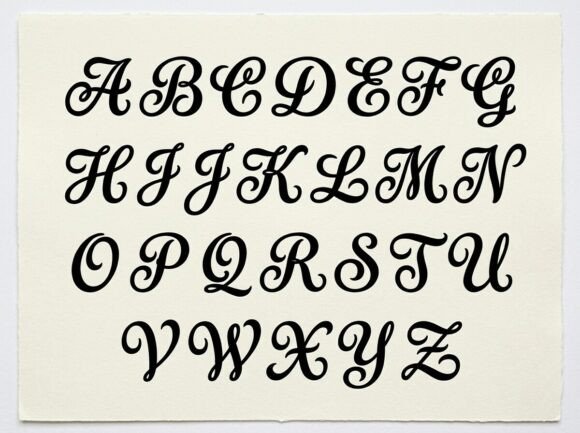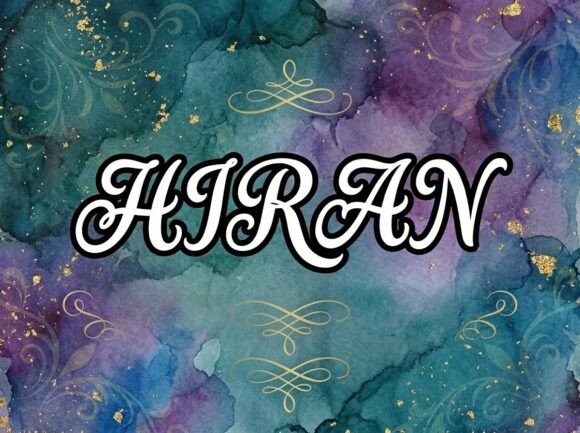
Introduction to Hiran Font
Have you ever stared at a blank page, wondering how to bring your creative project to life? For designers, finding the perfect font can be a game-changer. It’s the difference between a good design and a great one. That’s why we’re excited to introduce you to the Hiran Font, a stunning decorative display font that’s sure to make your designs stand out.
Whether you’re working on a high-profile campaign, creating a unique logo, or designing packaging for a product, the Hiran Font is the perfect design resource to elevate your work. With its unique artistic elements and strong visual personality, this font is versatile enough for bold headlines, artistic logos, and creative packaging, while maintaining a professional and polished finish.
Key Features of Hiran Font
• Unique, hand-drawn design with a creative touch suitable for various projects.
• Perfect for designers looking for a unique, high-quality font to enhance their creative project.
Honest Review: Hiran Font
As a designer, I’ve had the pleasure of working with numerous fonts for various creative projects. Recently, I stumbled upon the Hiran Font, and I’m excited to share my honest review with you.
• It features a unique and modern design that’s perfect for creative projects that require a touch of sophistication.
• The transparent background allows for seamless integration with any design, giving you the flexibility to customize as needed.
• The font may not be suitable for large-scale text, as it can become difficult to read at larger sizes.
• The limited character set may require additional font styles for comprehensive use.
Overall, the Hiran Font is a solid design resource that’s perfect for designers looking to add a touch of elegance to their projects. While it has some limitations, its unique design and high-quality make it a worthwhile addition to any design toolkit.
Tips for Getting the Most Out of Hiran Font
For optimal results, use Hiran Font with a transparent background to create a clean and modern look. You can also use Hiran Font in combination with other design resources, such as graphics and images, to create a unique and engaging design.